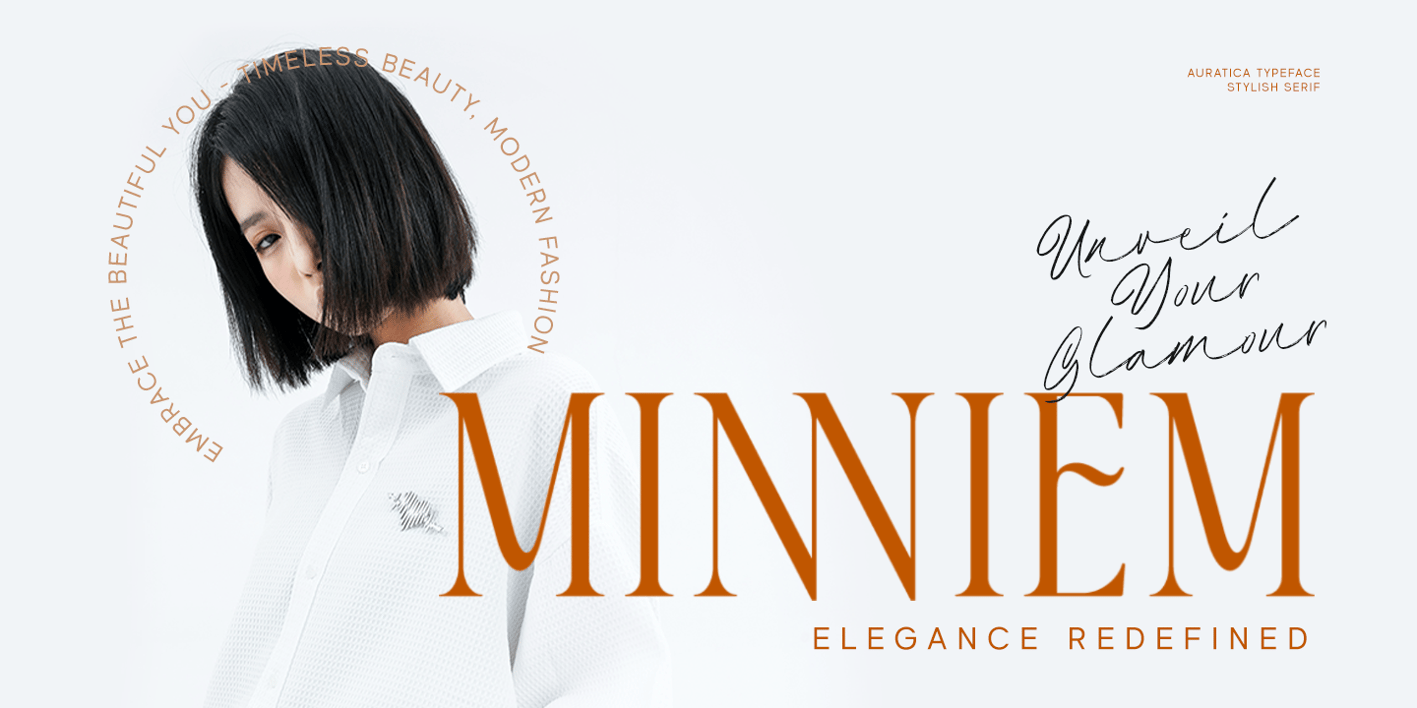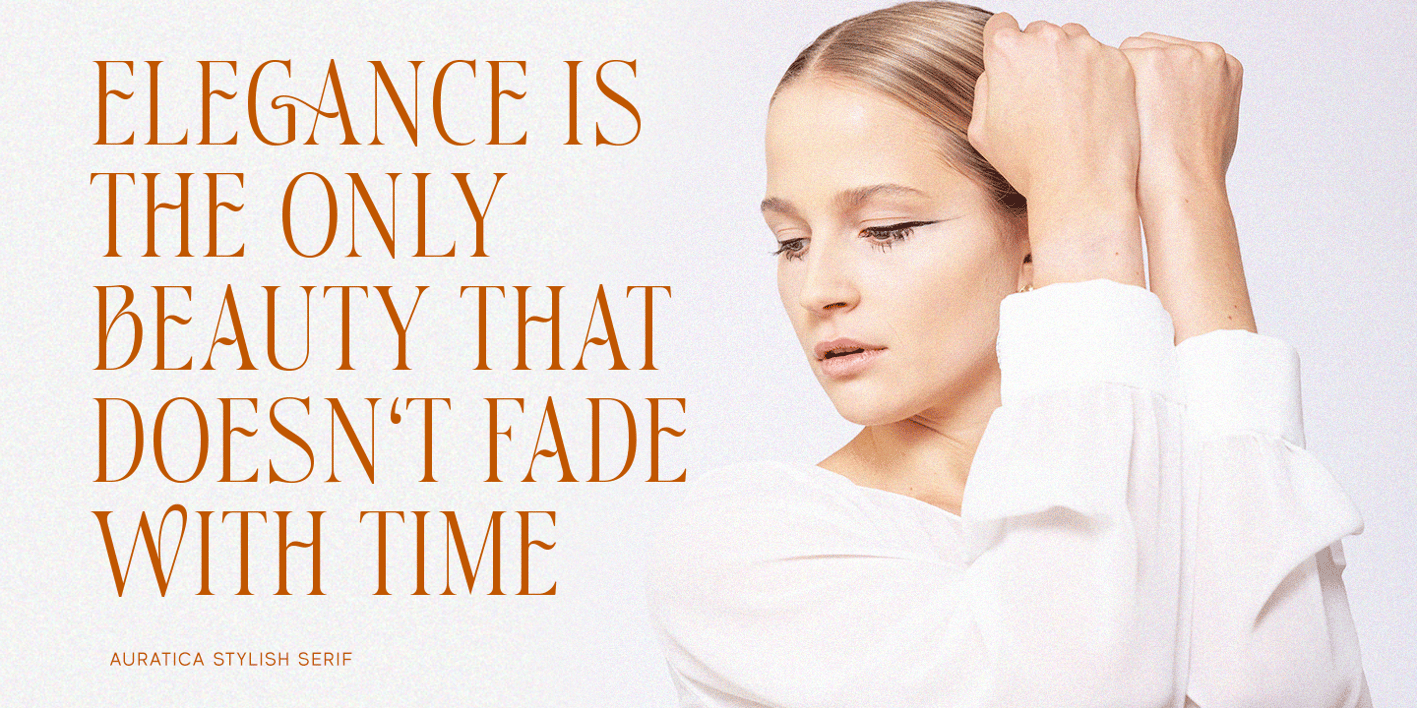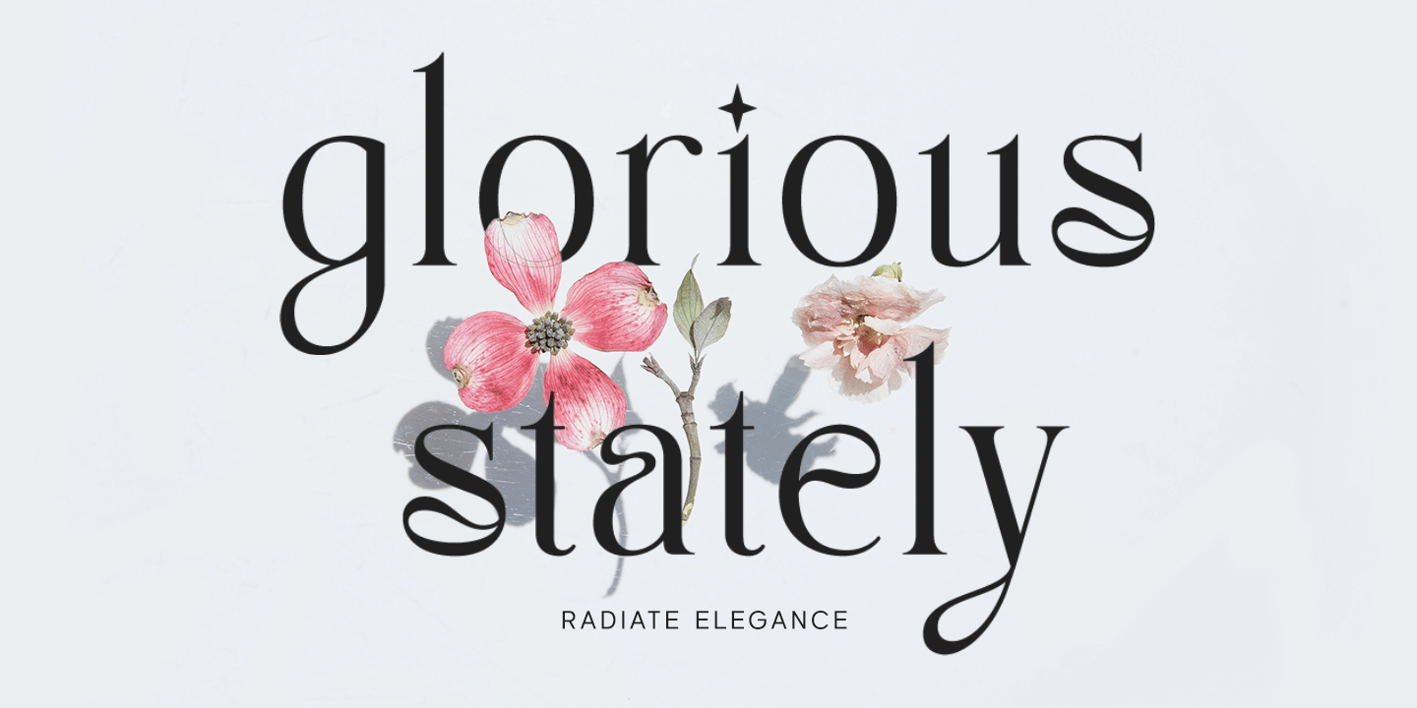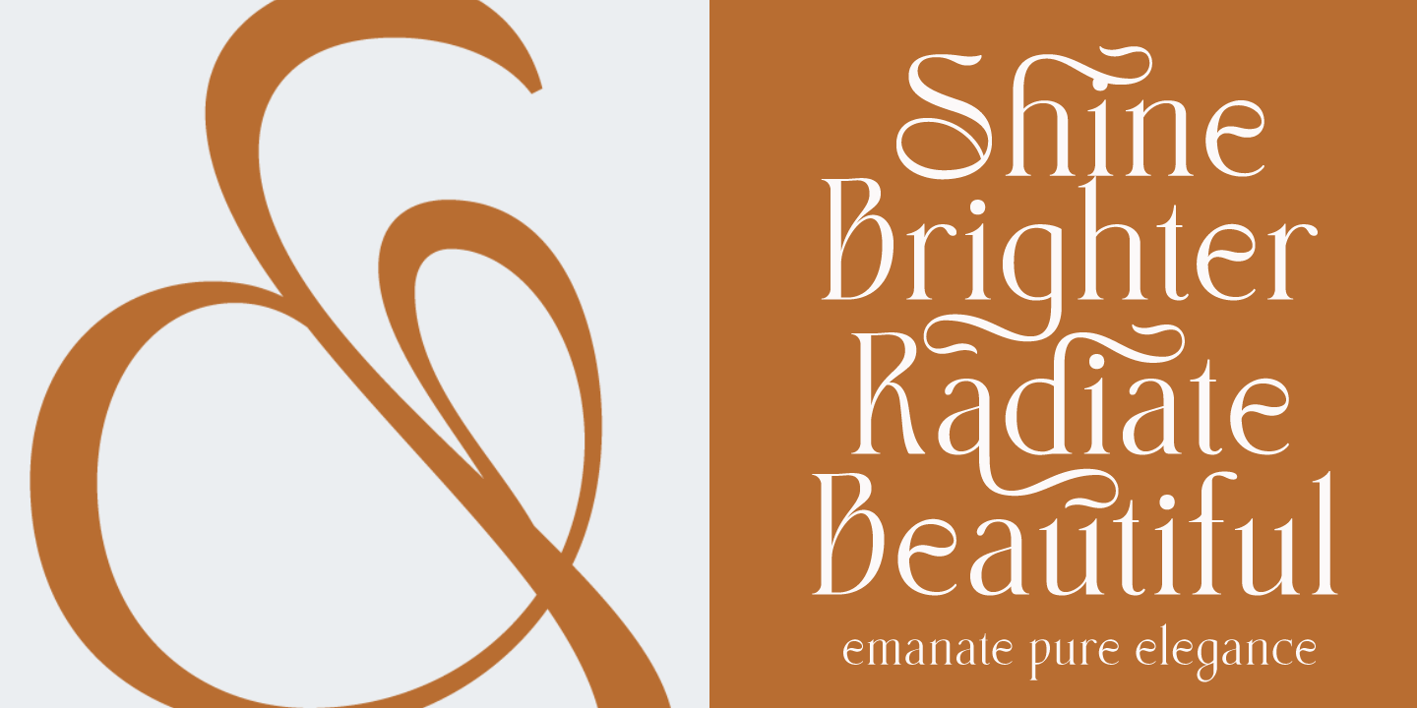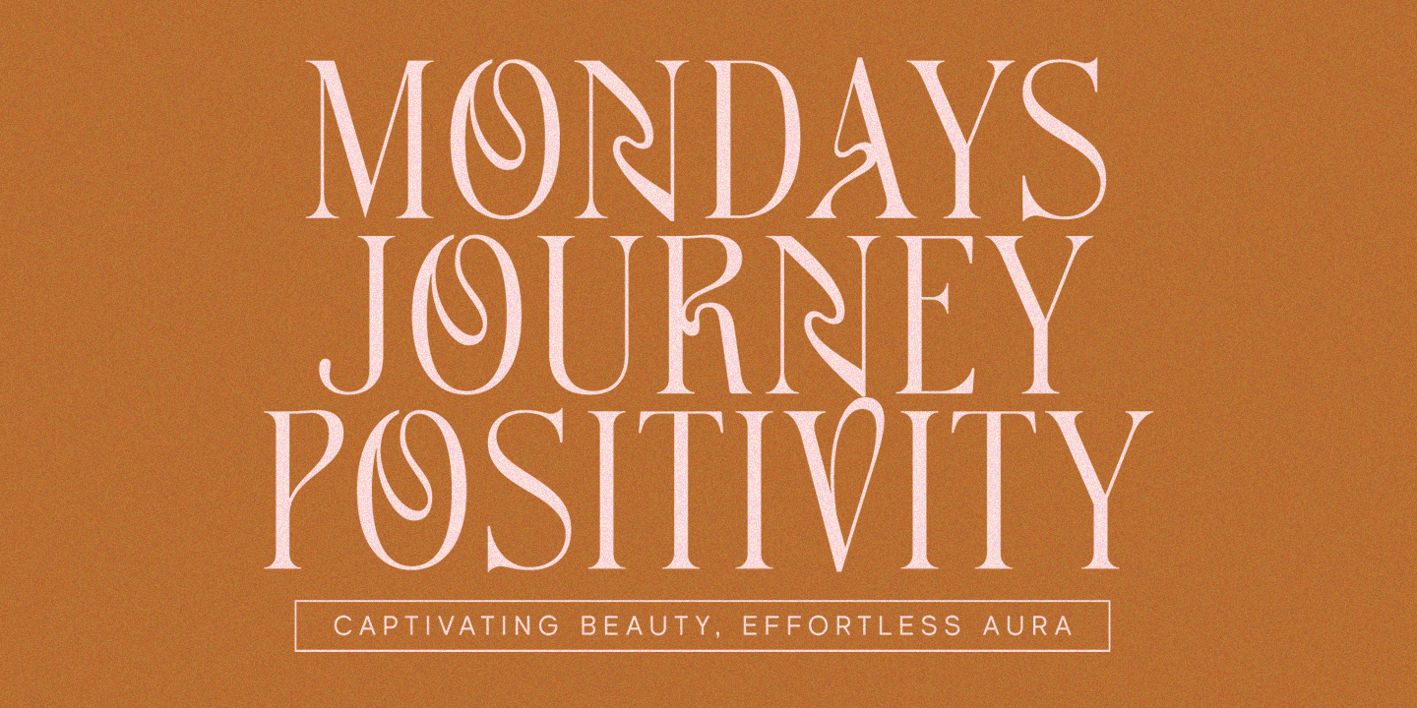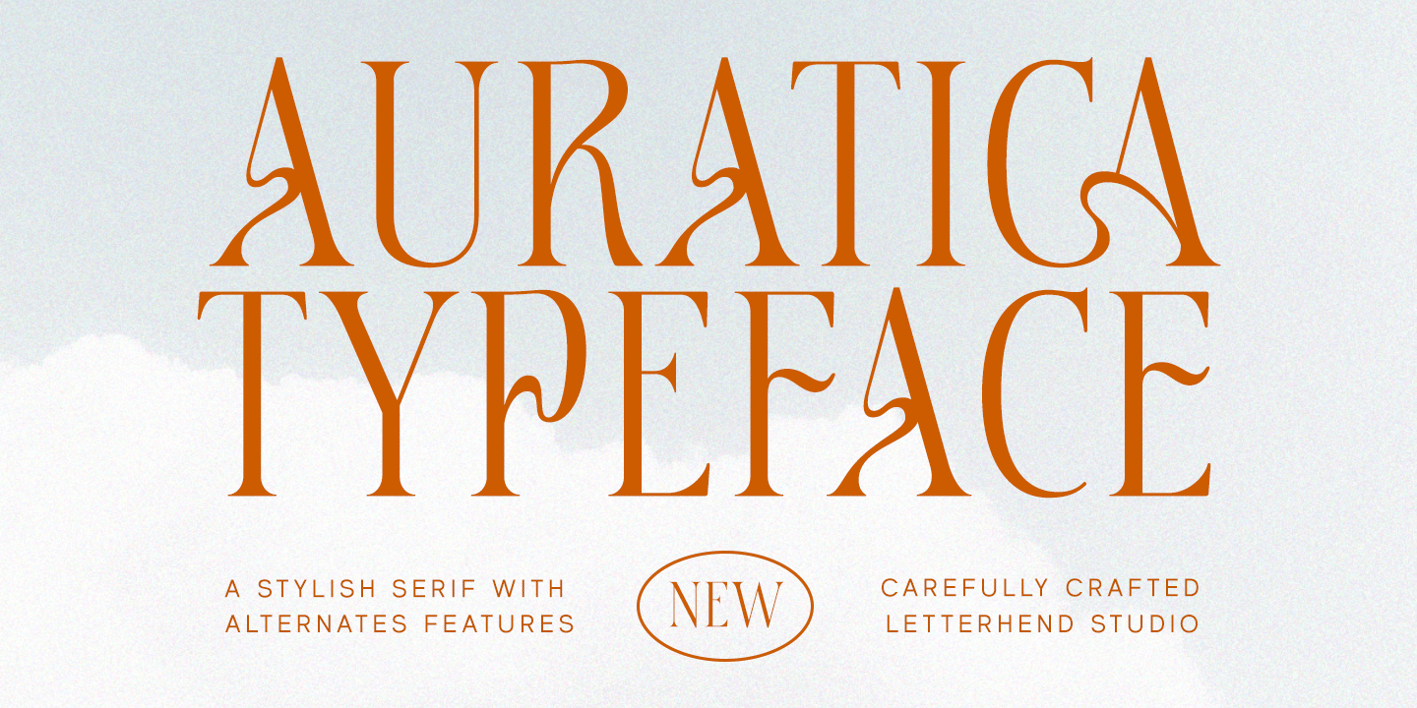
Auratica Font
Auratica Typeface is a stylish new serif font that lets you experiment with alternative characters, adding a marvelous touch to your designs.This font perfectly made to be applied especially in logo, and the other various formal forms such as invitations, labels, logos, magazines, books, greeting / wedding cards, packaging, fashion, make up, stationery, novels, labels or any type of advertising purpose. Features : Uppercase & lowercase Numbers and punctuation Alternates & Ligatures Multilingual Support PUA encoded